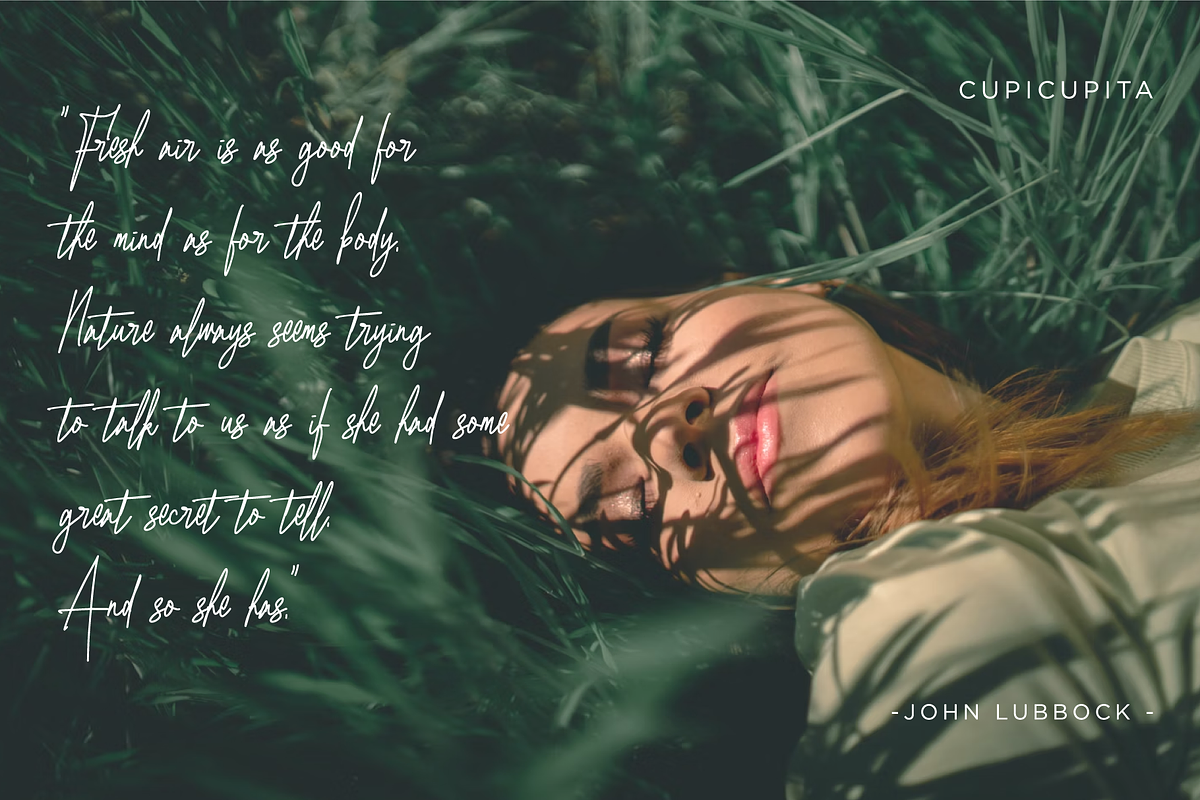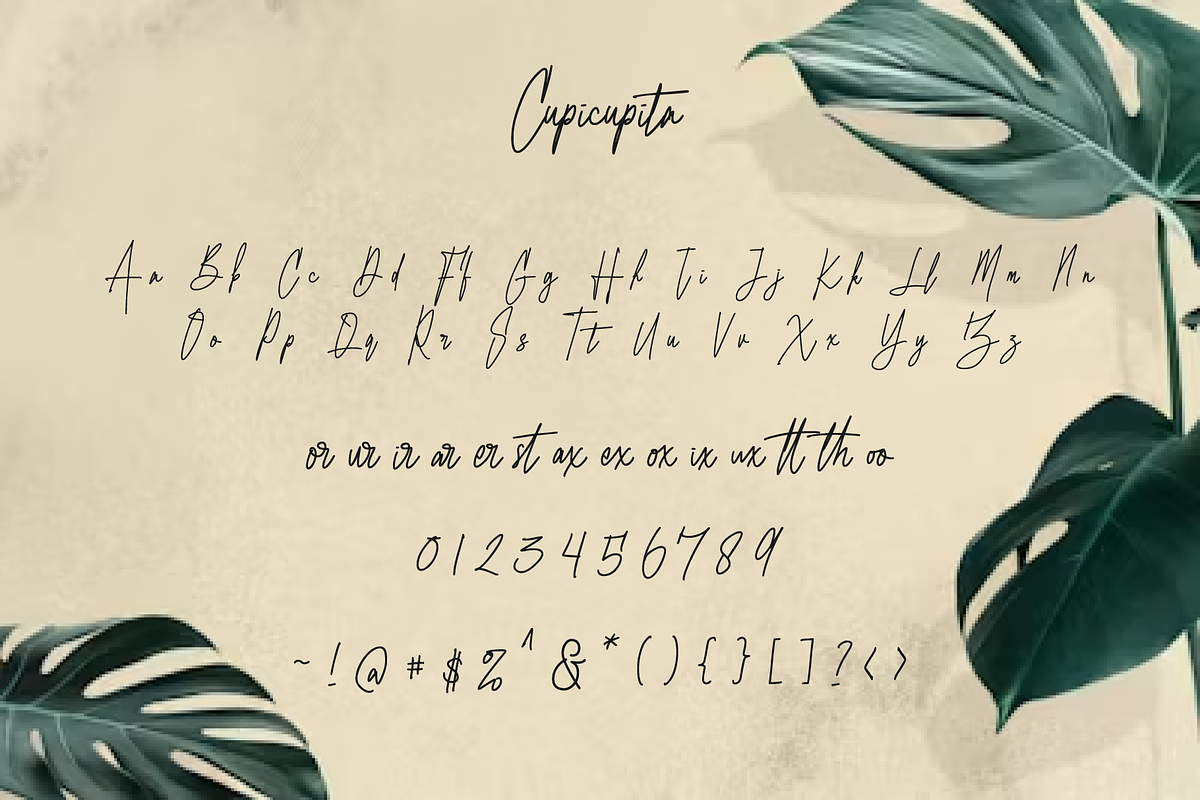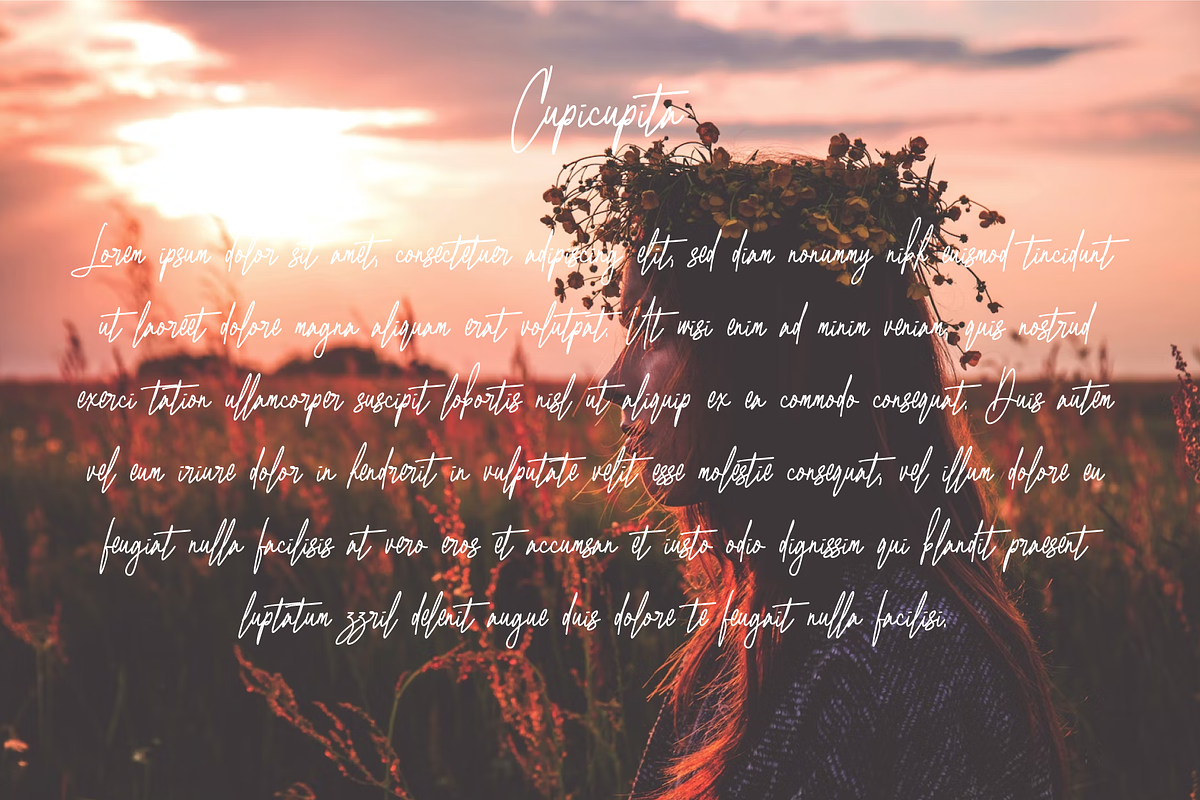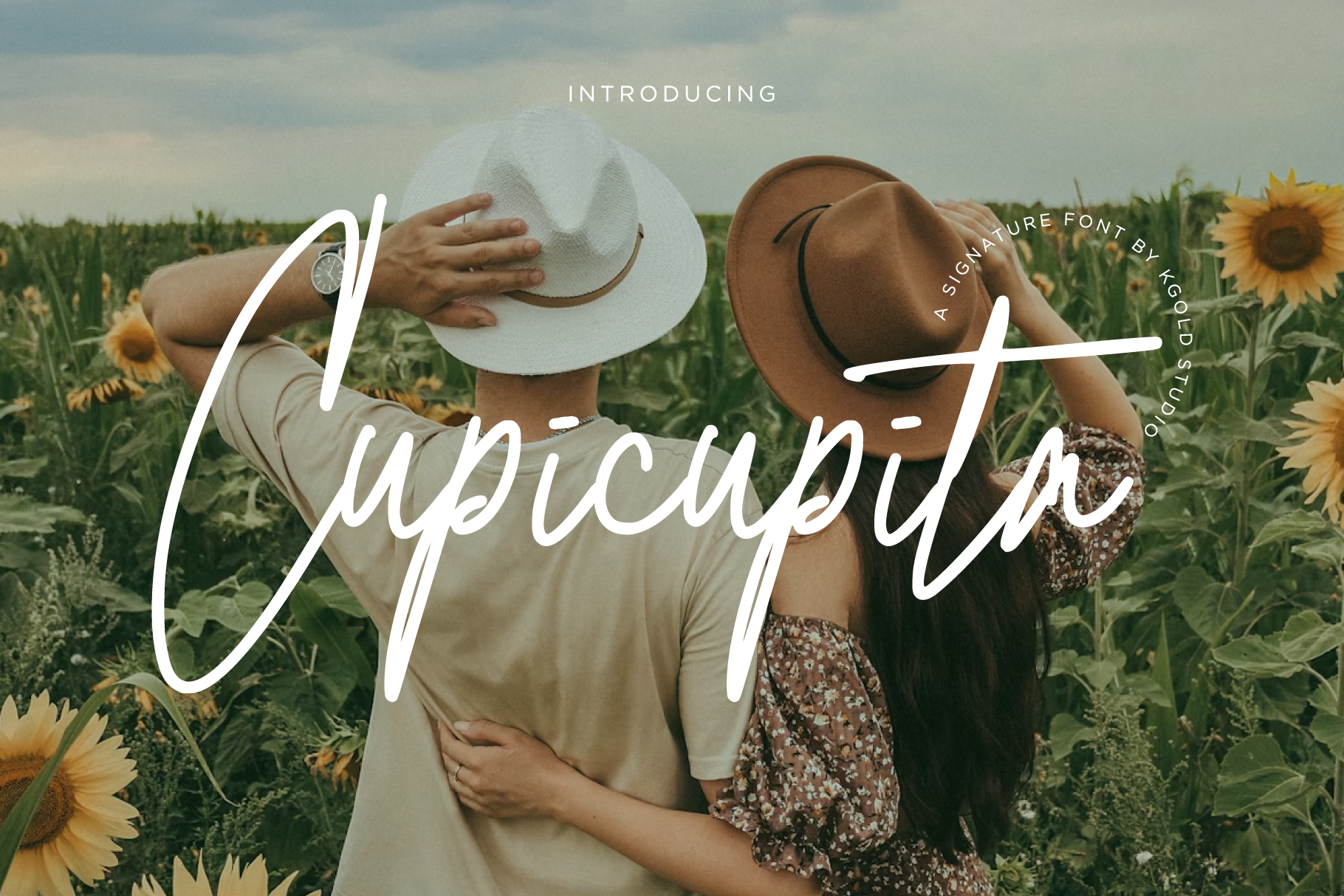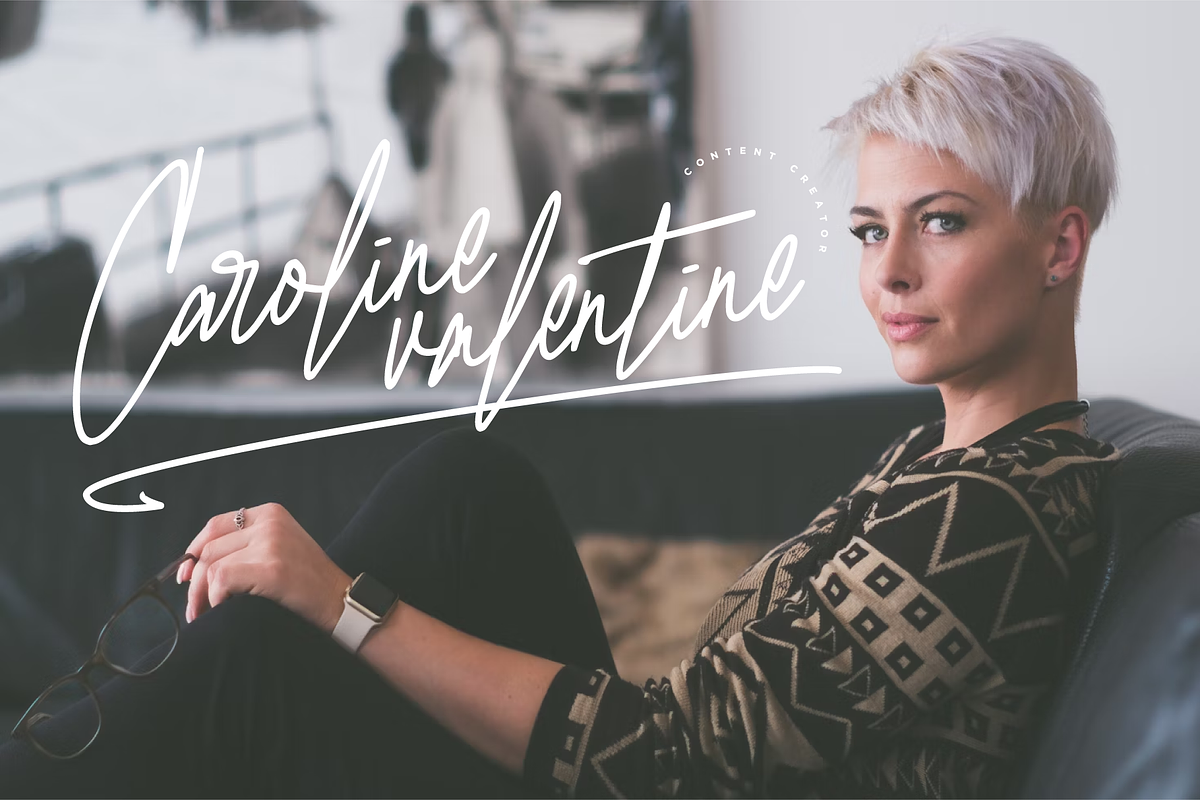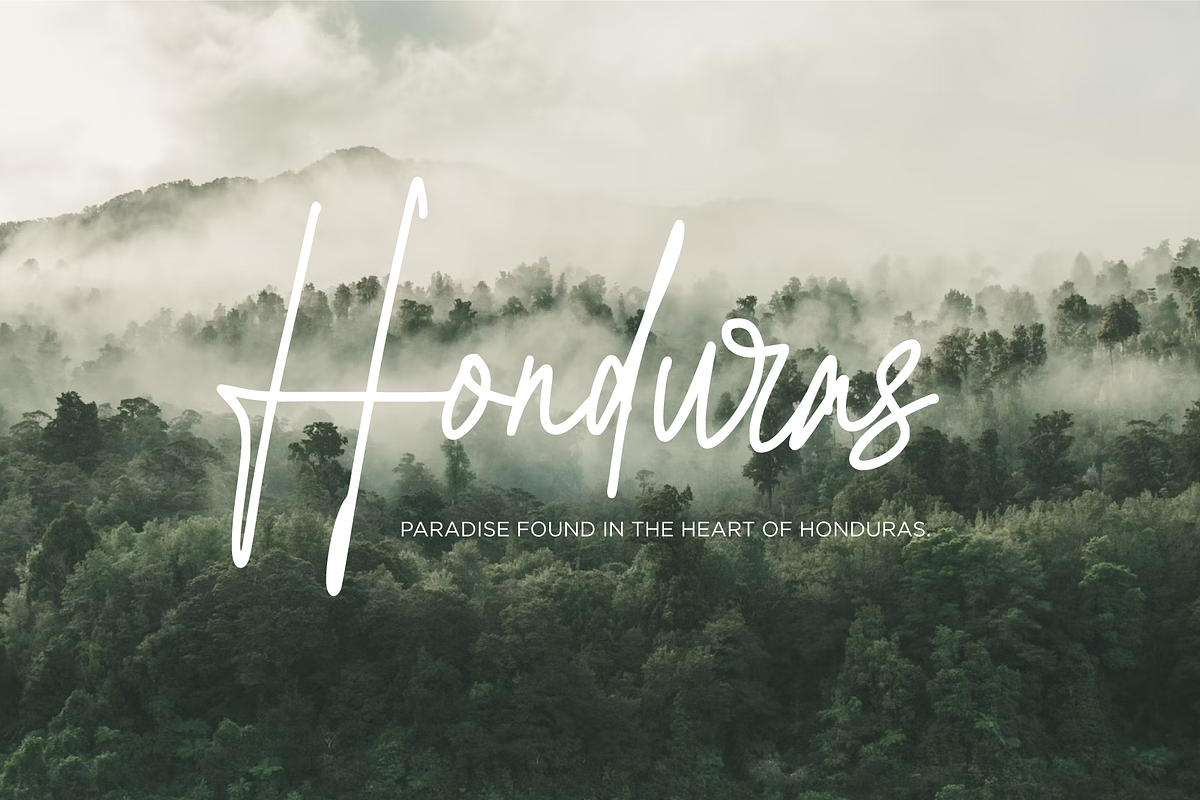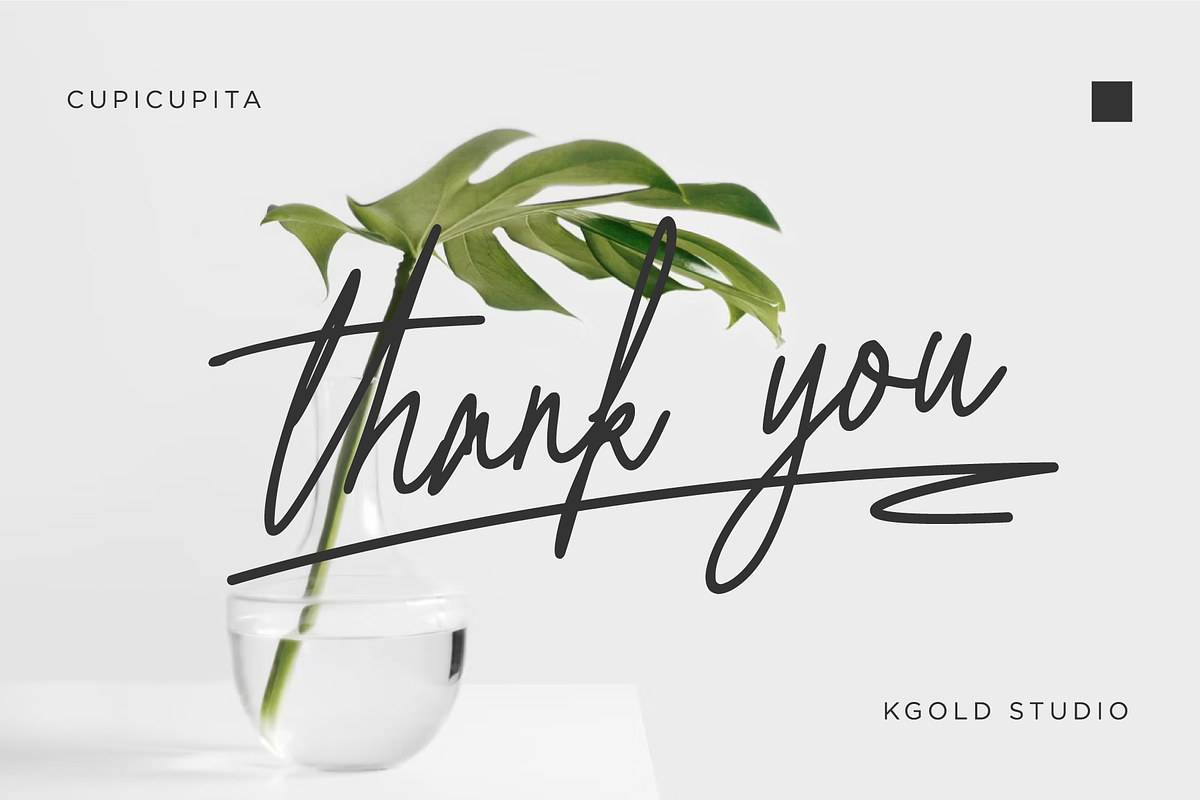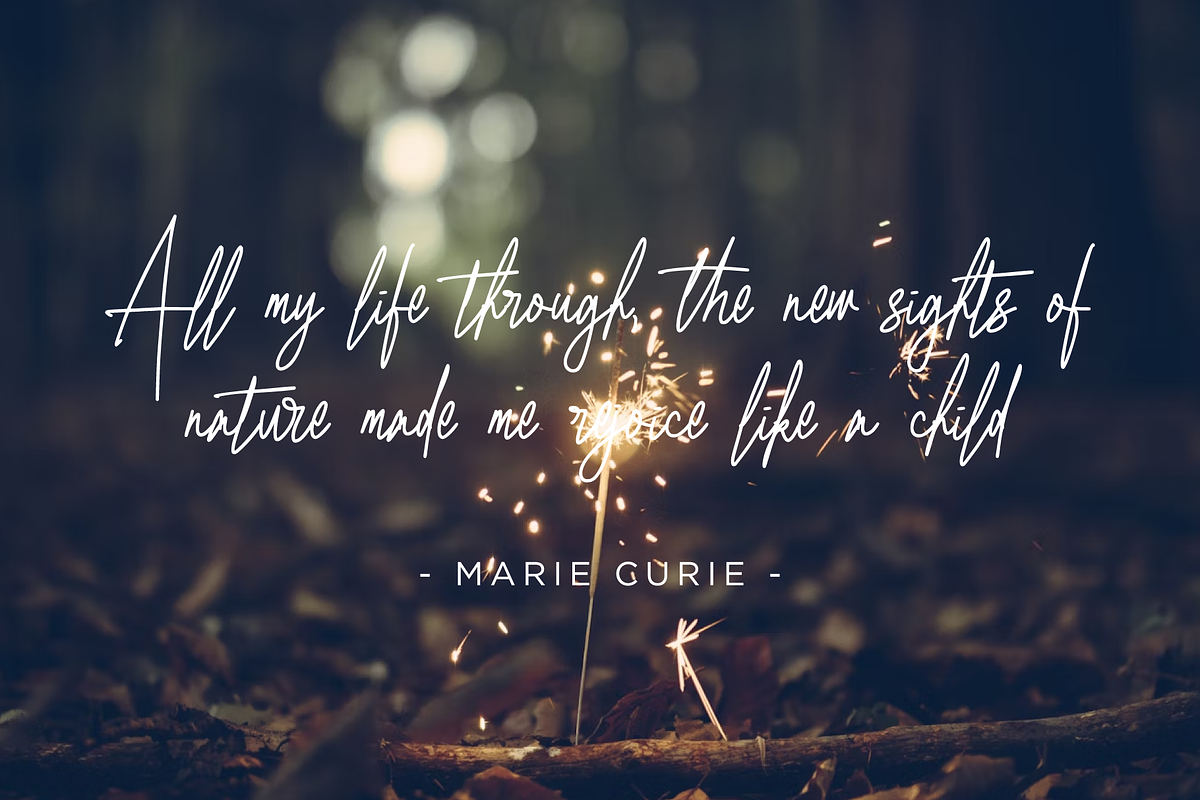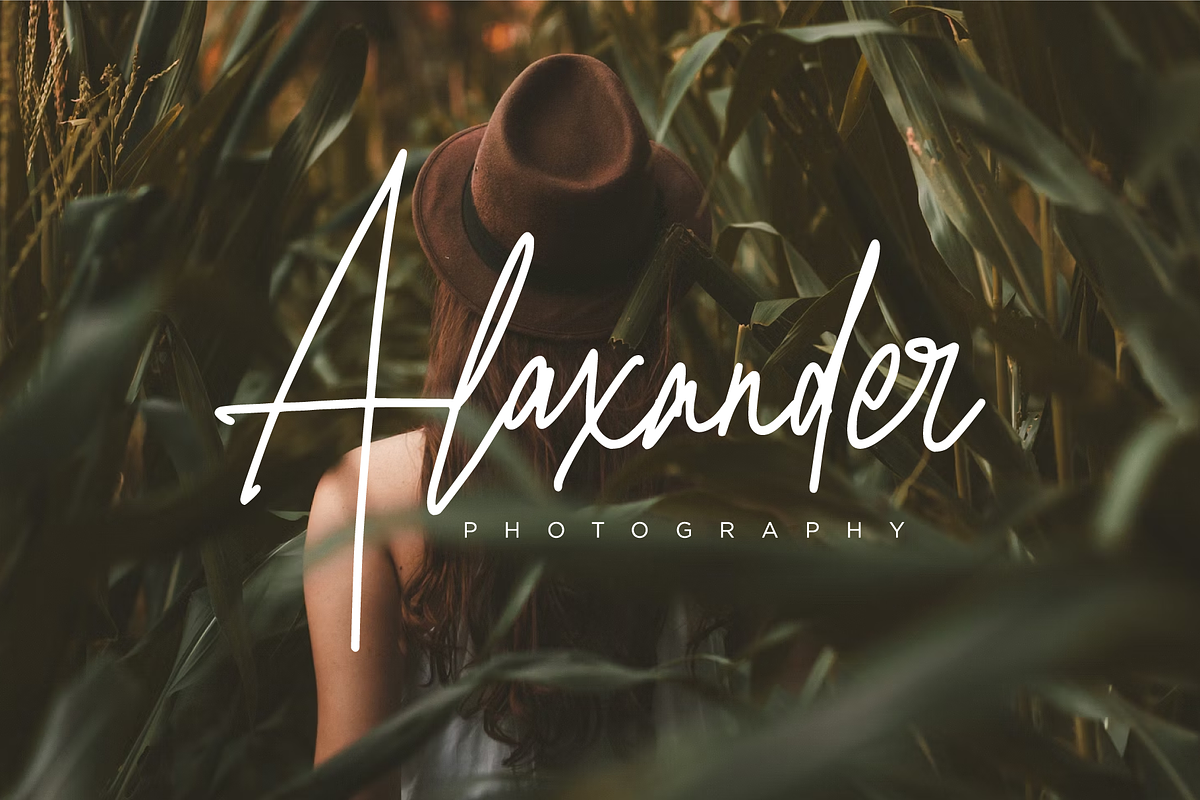
Cupicupita - Signature Font
Cupicupita is an elegant and graceful handwritten typeface that beautifully blends themes of beauty, nature, and personal signature. This font is perfect for projects that demand a touch of sophistication and natural charm, ideal for branding, wedding invitations, personal logos, and any creative endeavor where a unique and stylish handwriting font is desired.
- Handwritten Elegance: Capturing the fluidity and charm of natural handwriting, Cupicupita adds a personal and intimate touch to any project.
- Beauty and Grace: Delicate strokes and subtle curves imbue this font with a sense of beauty, making it perfect for projects focused on aesthetics and elegance.
- Nature-Inspired: The organic flow and natural design elements reflect the serenity and charm of nature, making your text feel more alive and connected to the earth.
- Signature Style: With its sophisticated and stylish look, Cupicupita is ideal for creating signature logos, personal branding, and any design that needs a bespoke touch.
- Versatile Applications: Perfect for wedding stationery, greeting cards, product packaging, social media graphics, and more. Cupicupita shines in both digital and print formats.
- Multiple Variants: Includes various weights and styles, providing flexibility and creative options to suit different design needs.
Why Choose Cupicupita?
- Distinctive Charm: Stand out with a font that offers a unique blend of beauty, nature, and personal handwriting style.
- Professional Quality: Crafted with precision to ensure excellent readability and aesthetic appeal, whether used in large headers or small body text.
- Creative Flexibility: Enhance your design projects with a font that brings a touch of elegance and a personal signature feel, making your work truly memorable.
Embrace the beauty of nature and the elegance of handwritten style with Cupicupita. Perfect for adding a personal, graceful touch to your designs, this font is where beauty meets nature in a sophisticated handwritten signature.